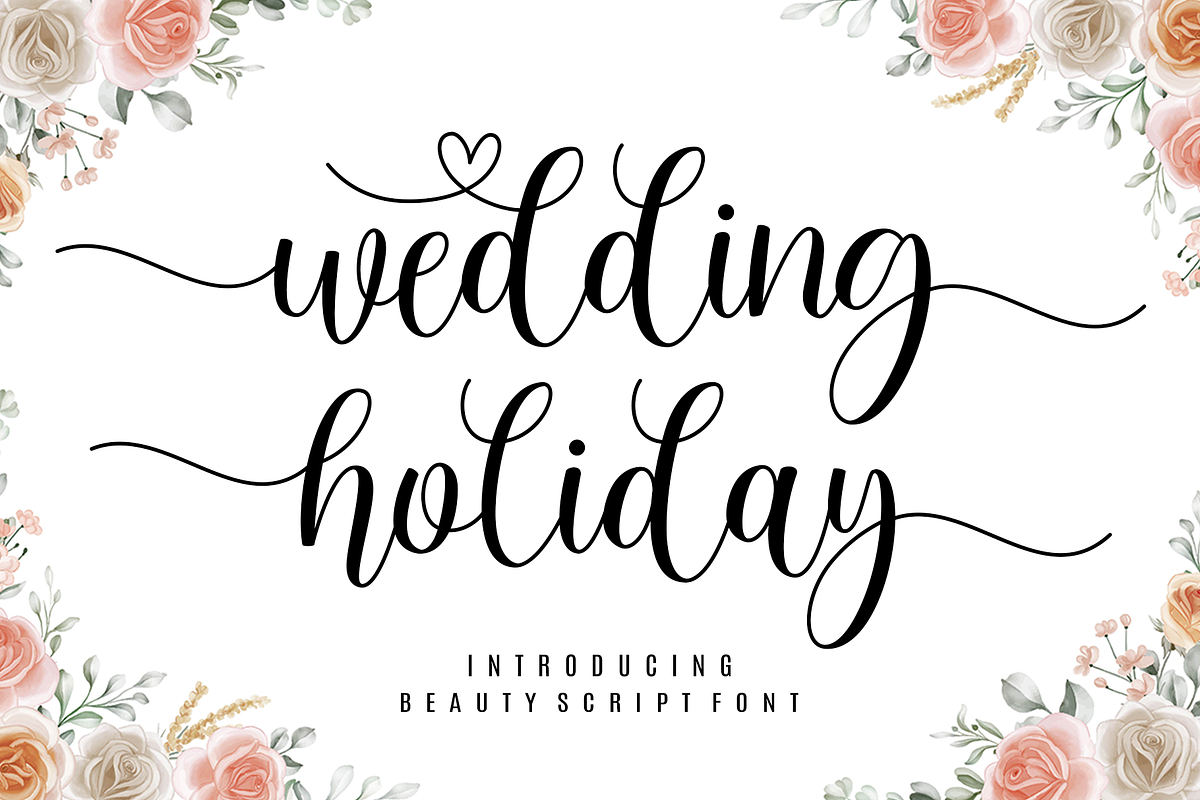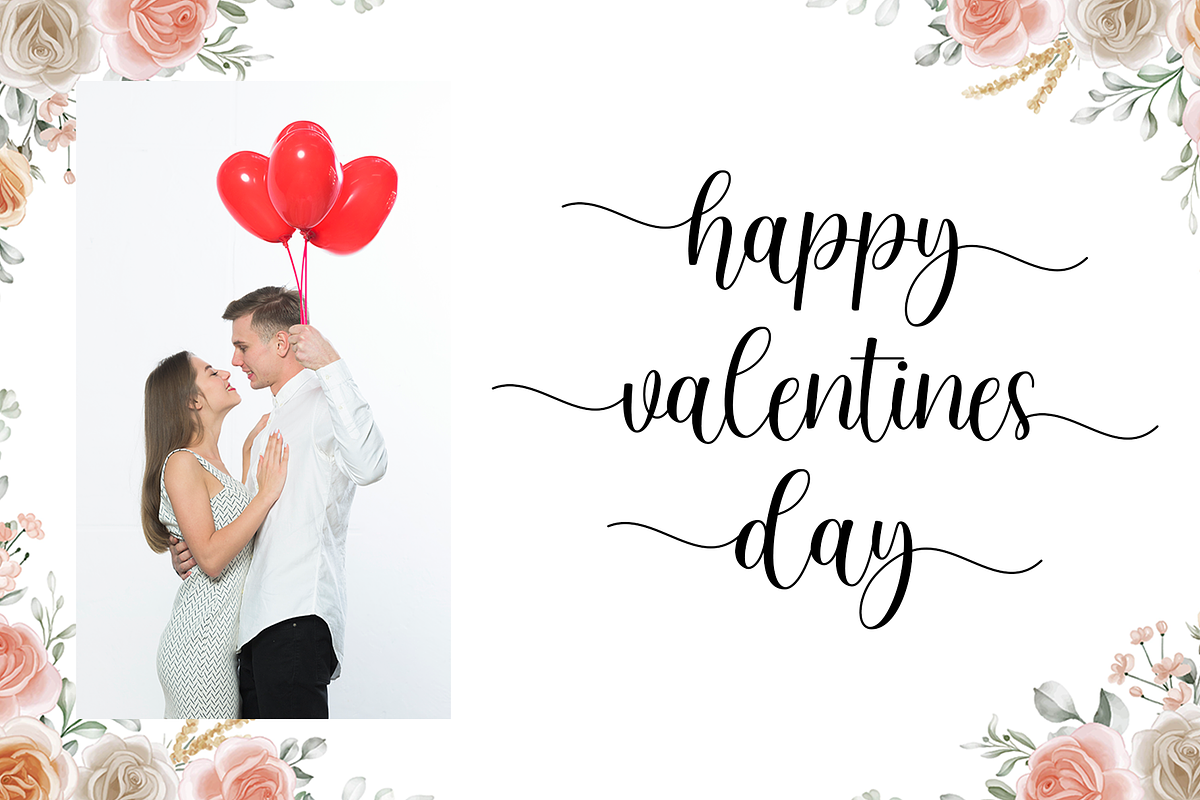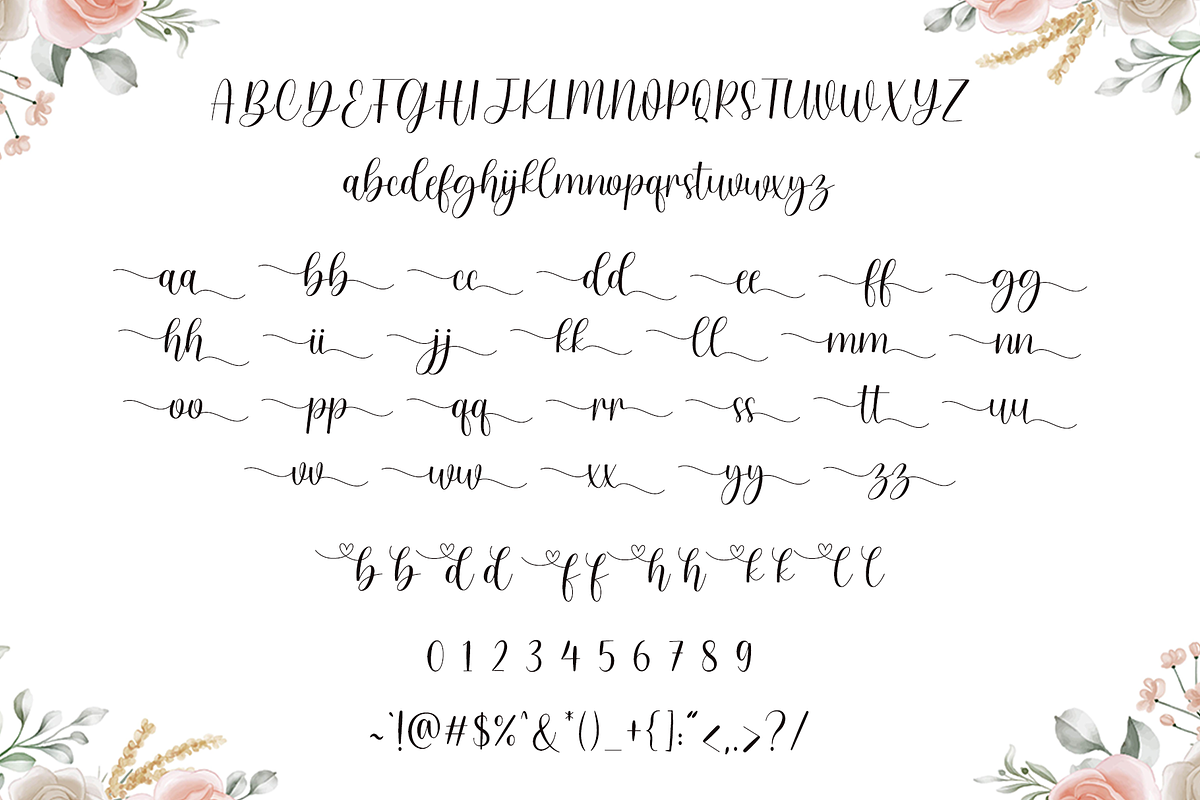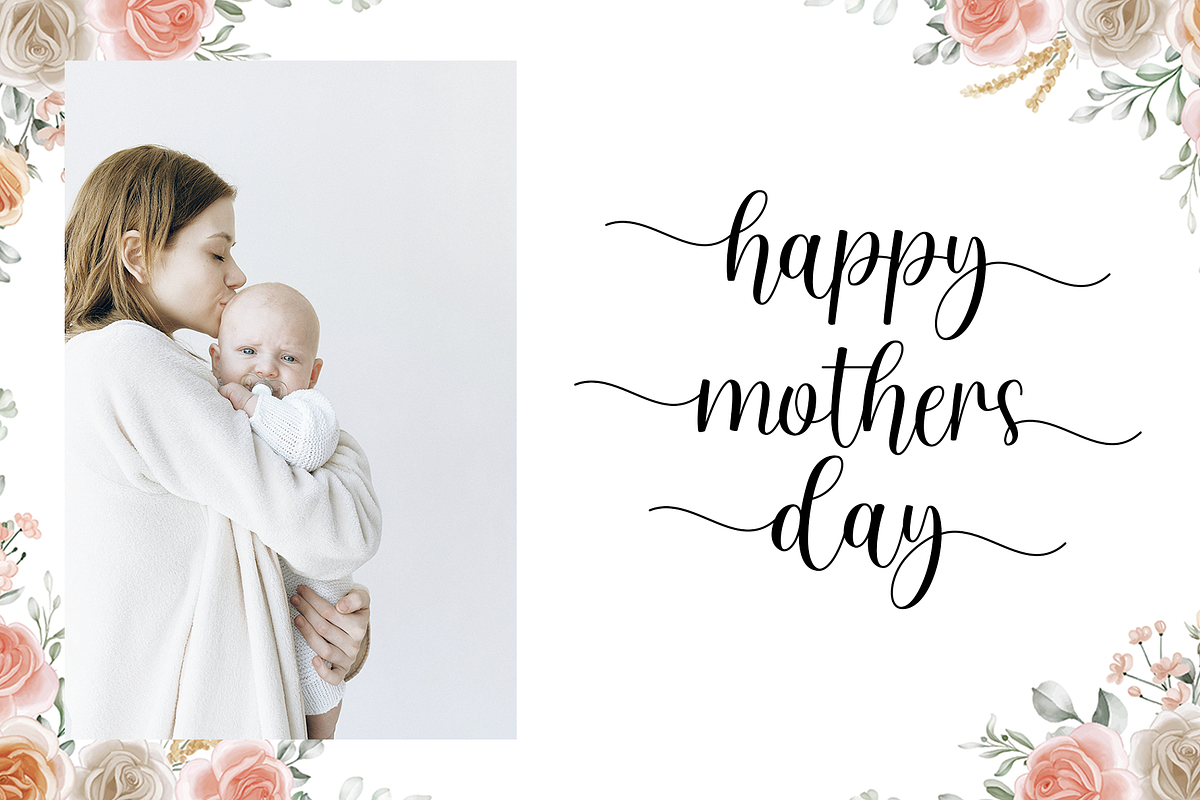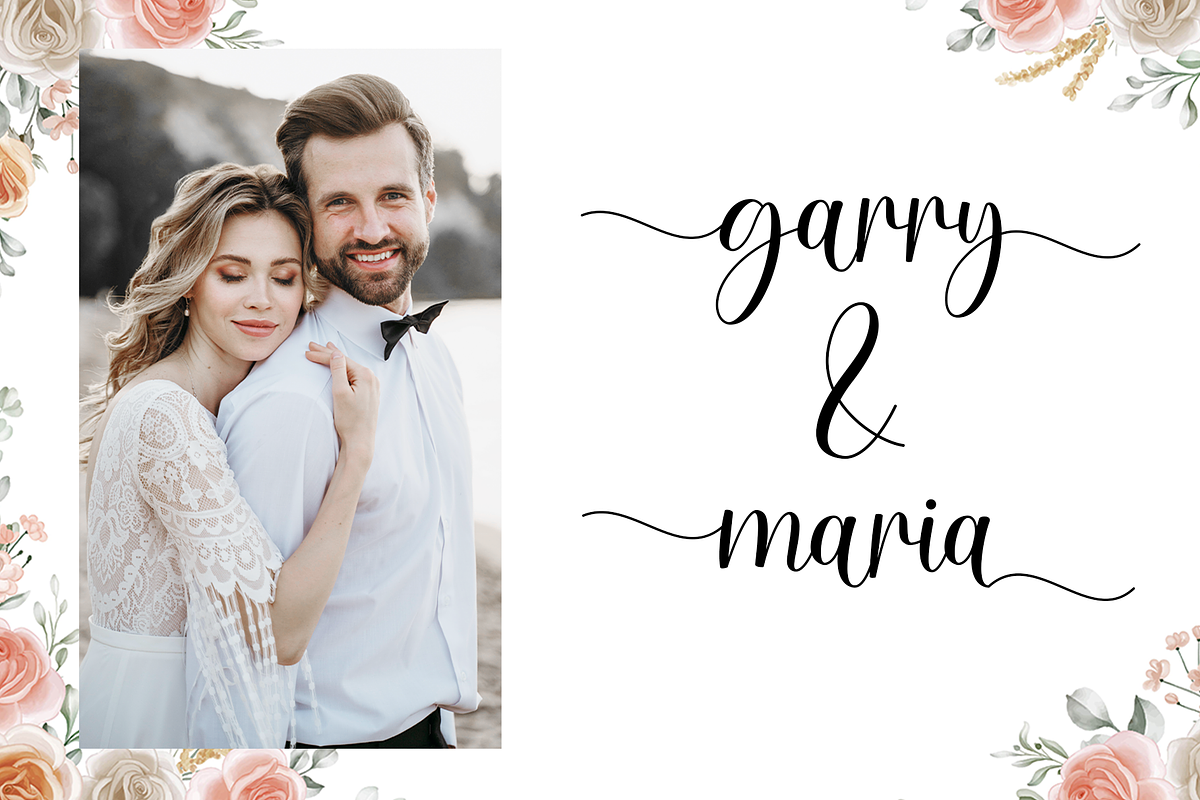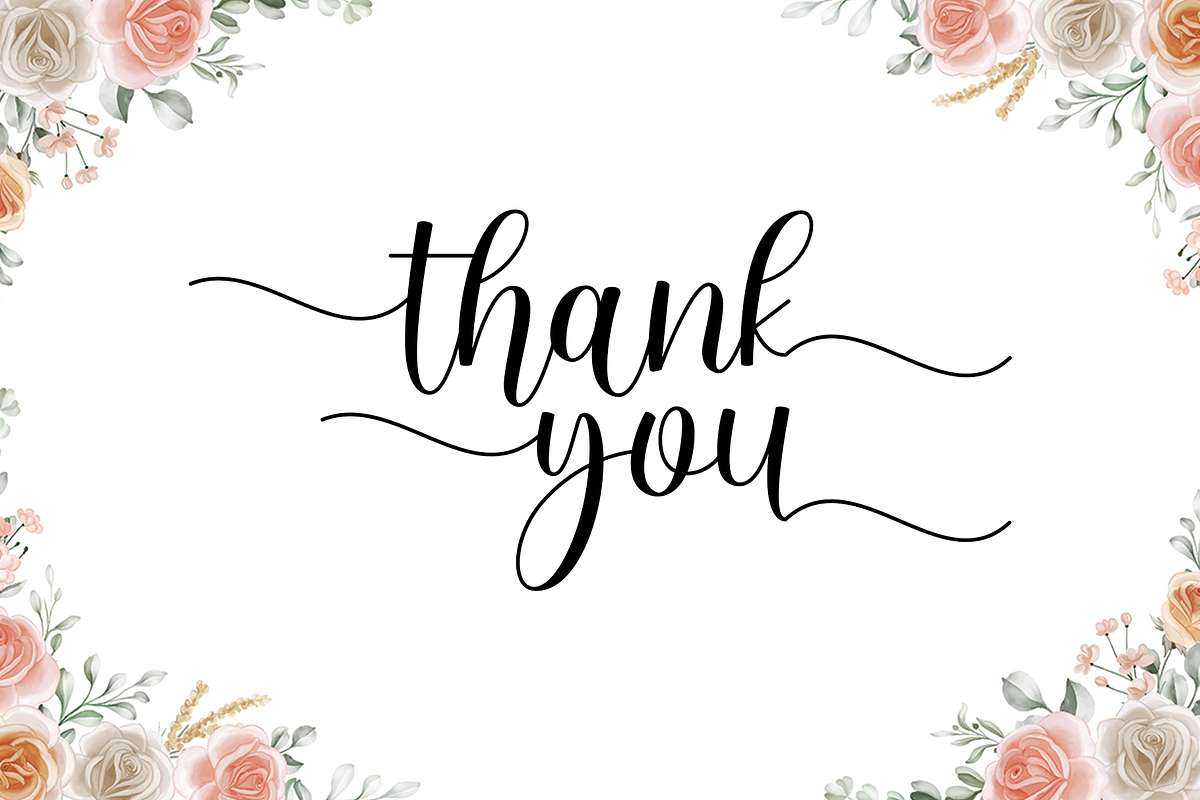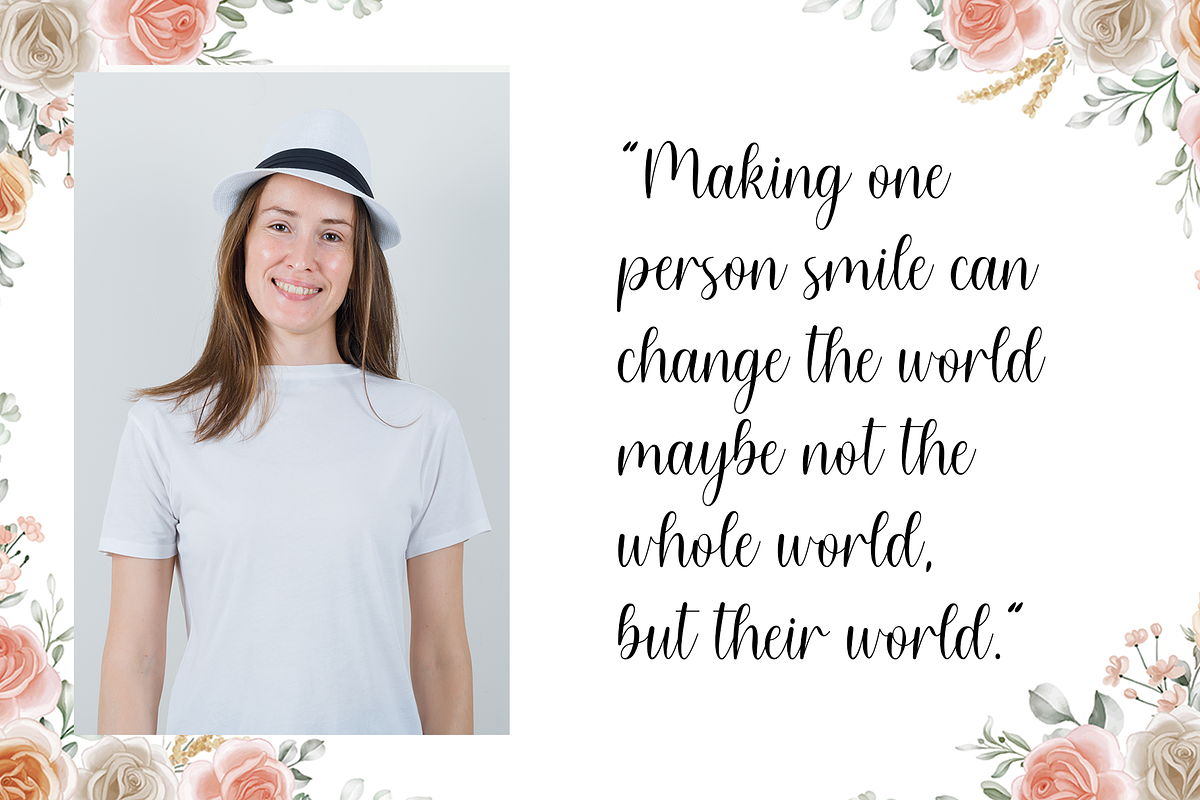
Wedding Holiday
Introducing Wedding Holiday – an enchanting font designed for those special moments. The charm of this script font lies in its delicacy, whispering stories of love and celebration in every gentle stroke. It’s perfect for wedding invitations, save the date cards, and other heartfelt communication, promising to add a touch of refinement and elegance to every encounter. With its soft appearance and stunning style, Wedding Holiday is the script font you’ve been dreaming of to express love in its most beautiful form.